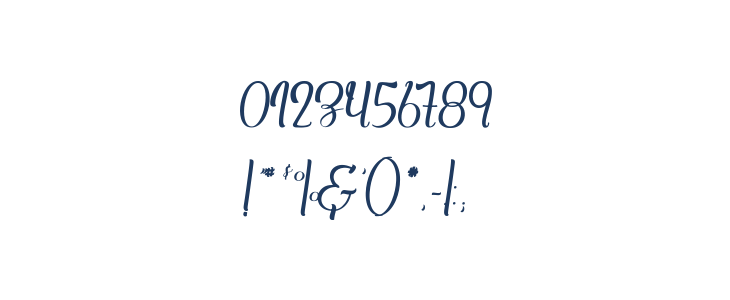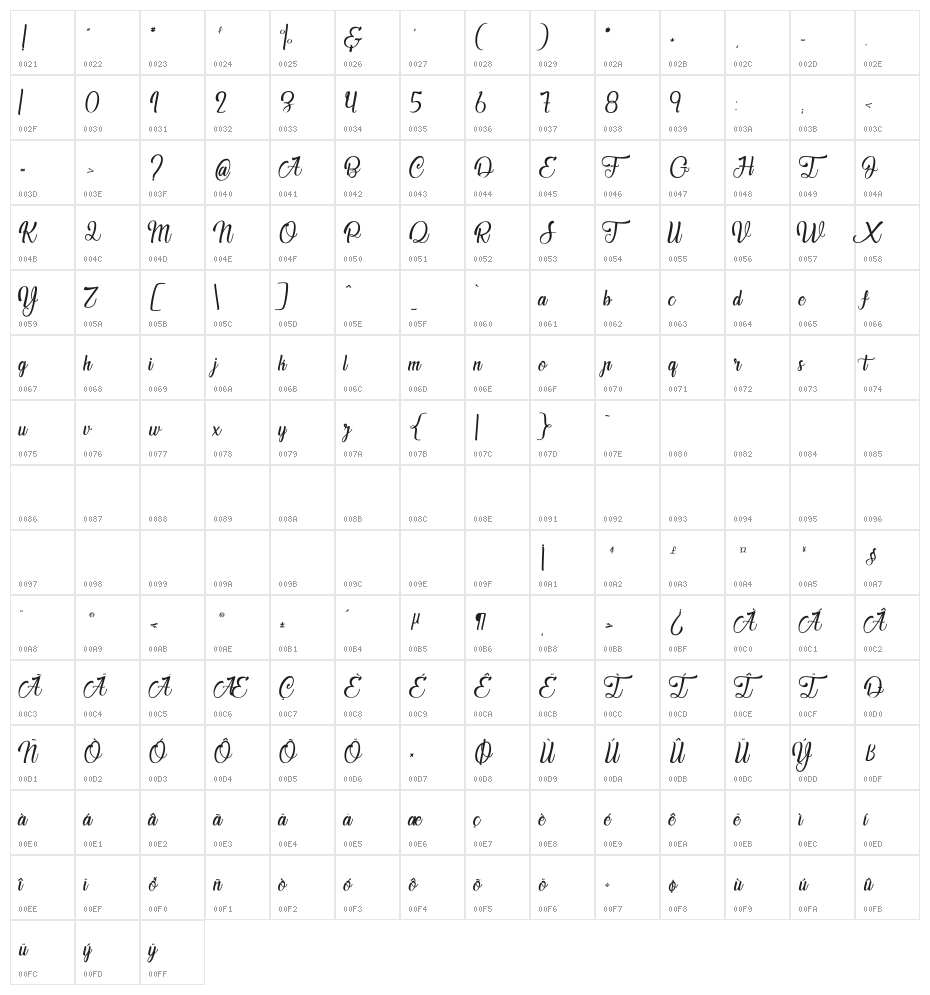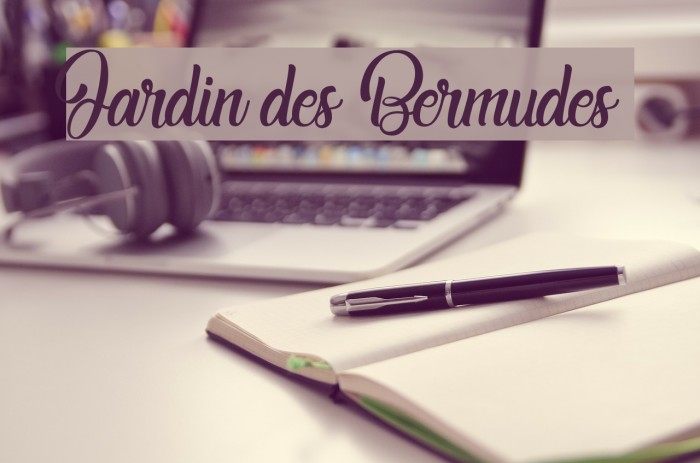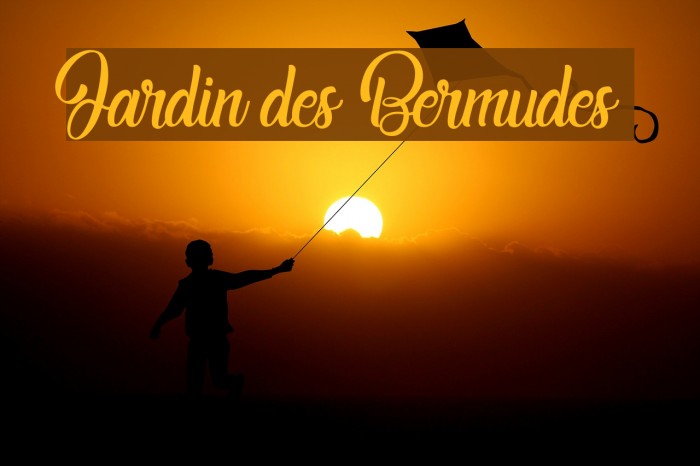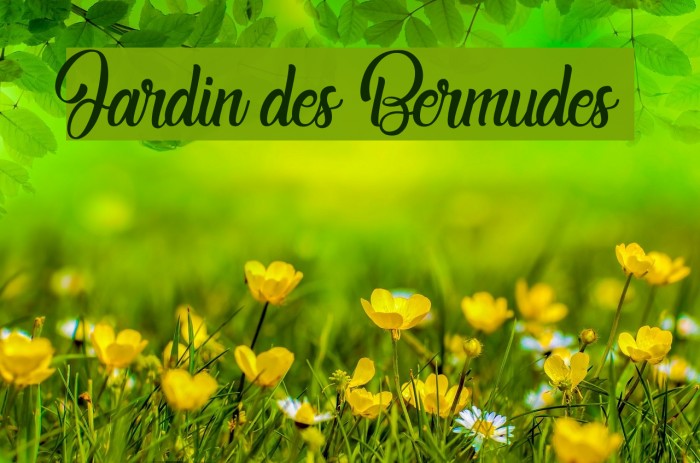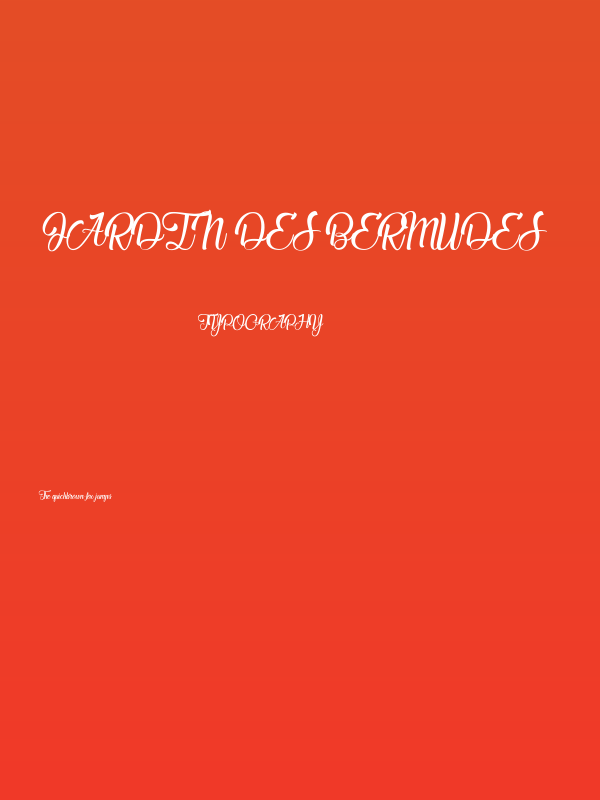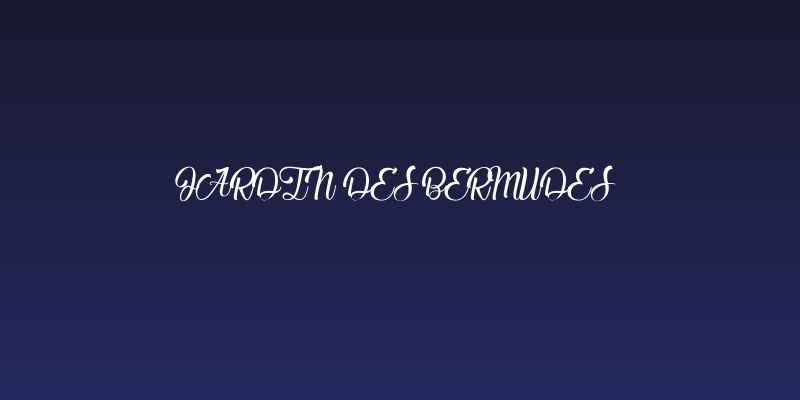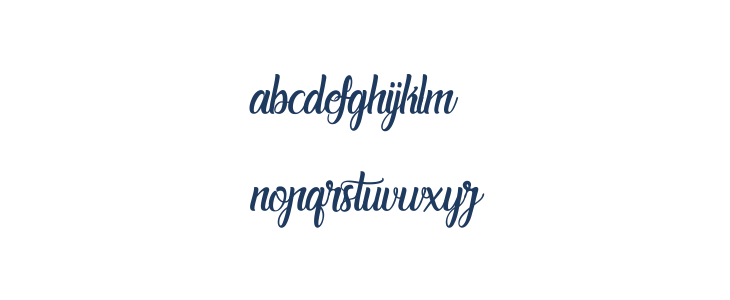
Jardin des Bermudes Font
Jardin des Bermudes Description
This font exudes a sophisticated and elegant style, characterized by its flowing script and graceful curves. The uppercase letters are adorned with intricate loops and swirls, giving a sense of fluidity and movement. The lowercase letters maintain a consistent style, with smooth connections between characters, enhancing readability while retaining an artistic flair. Numbers and special characters are designed with the same attention to detail, ensuring a cohesive look across all elements. This font is ideal for projects that require a touch of elegance and refinement.